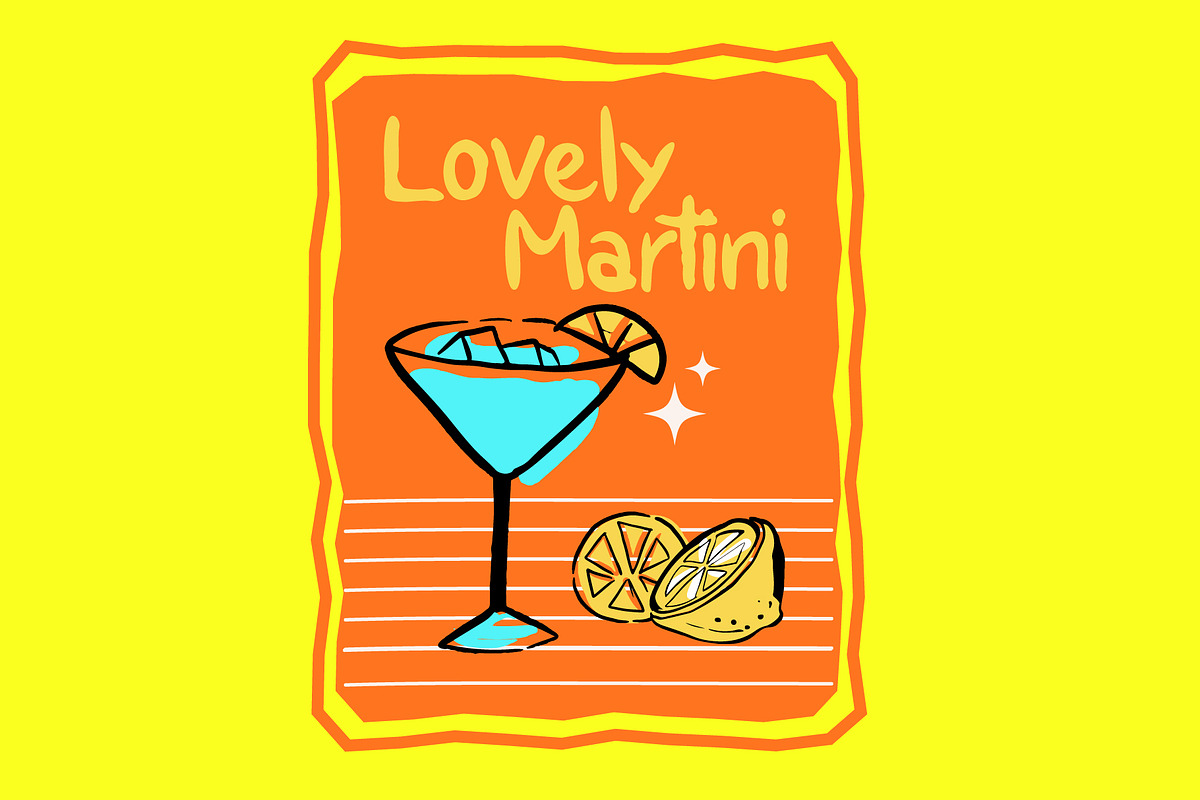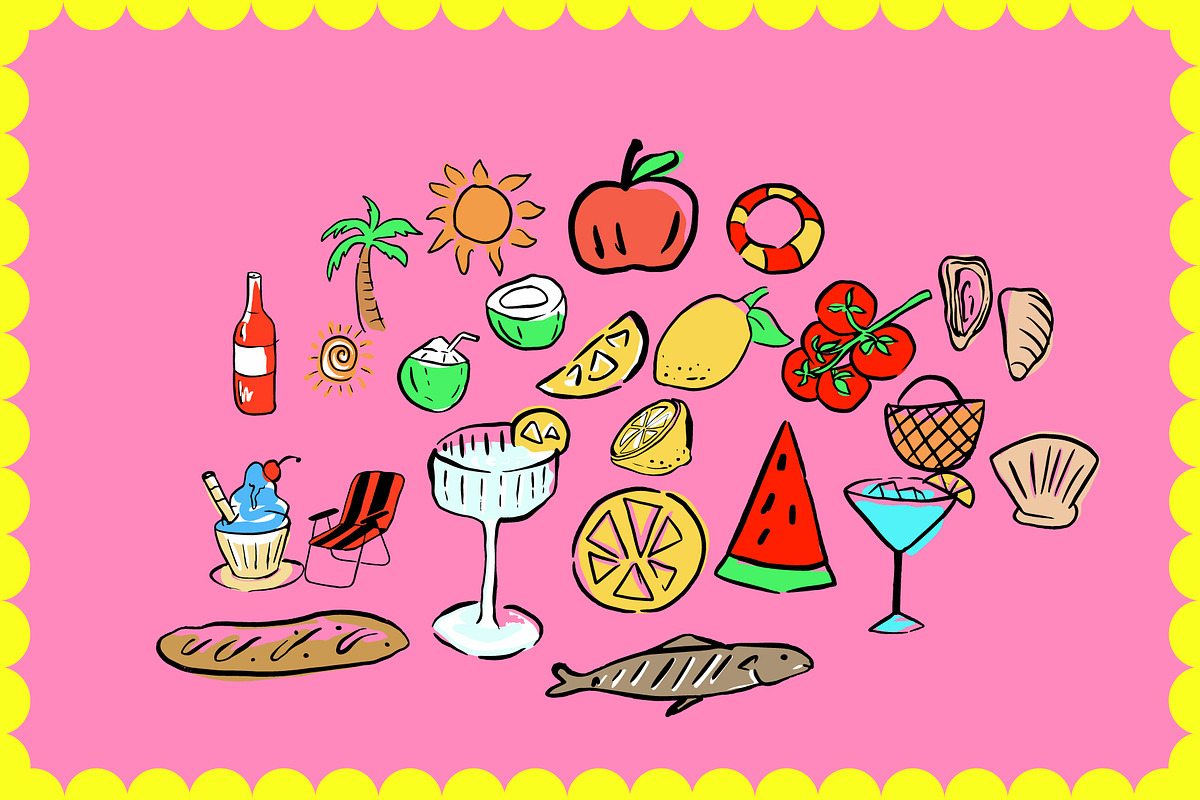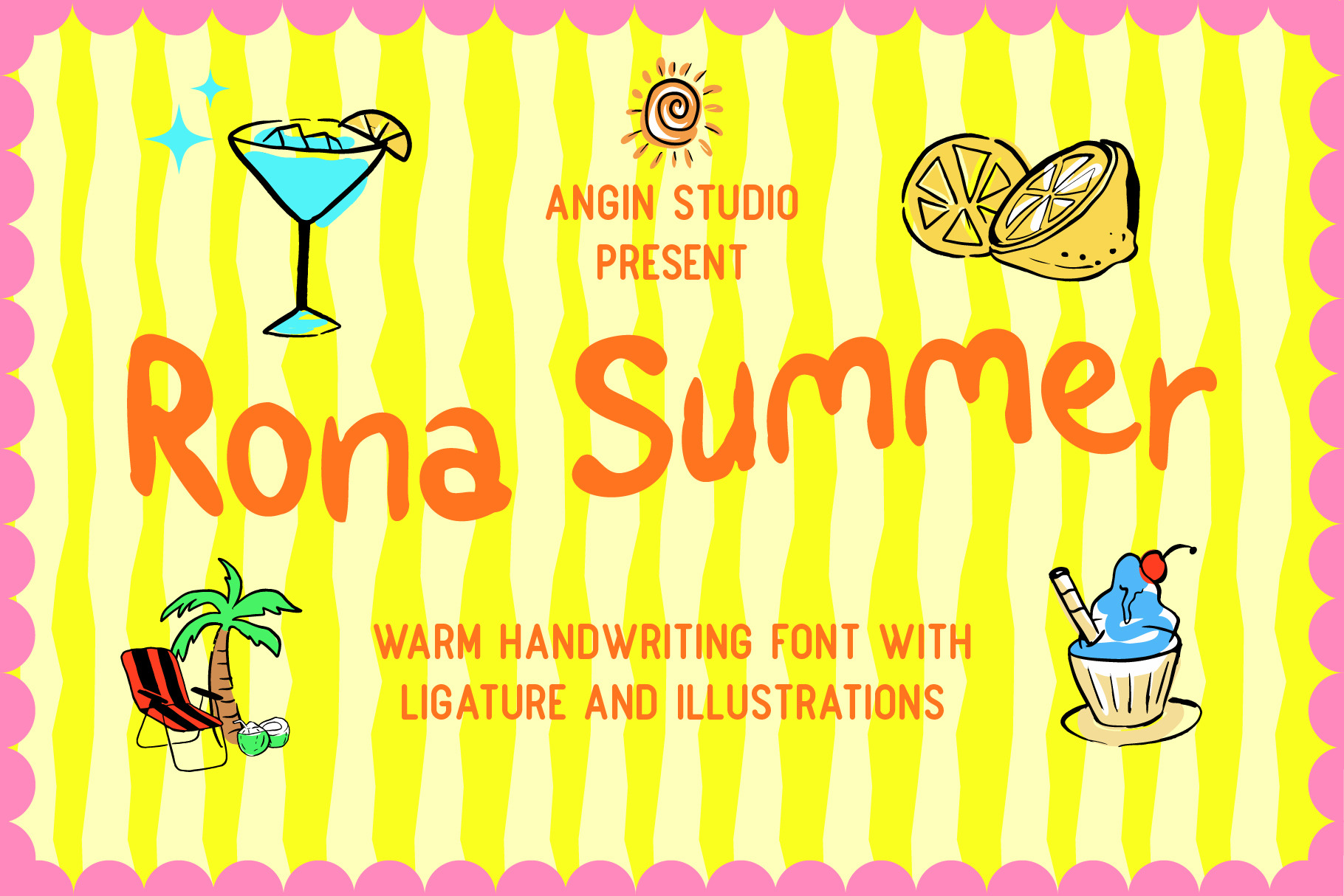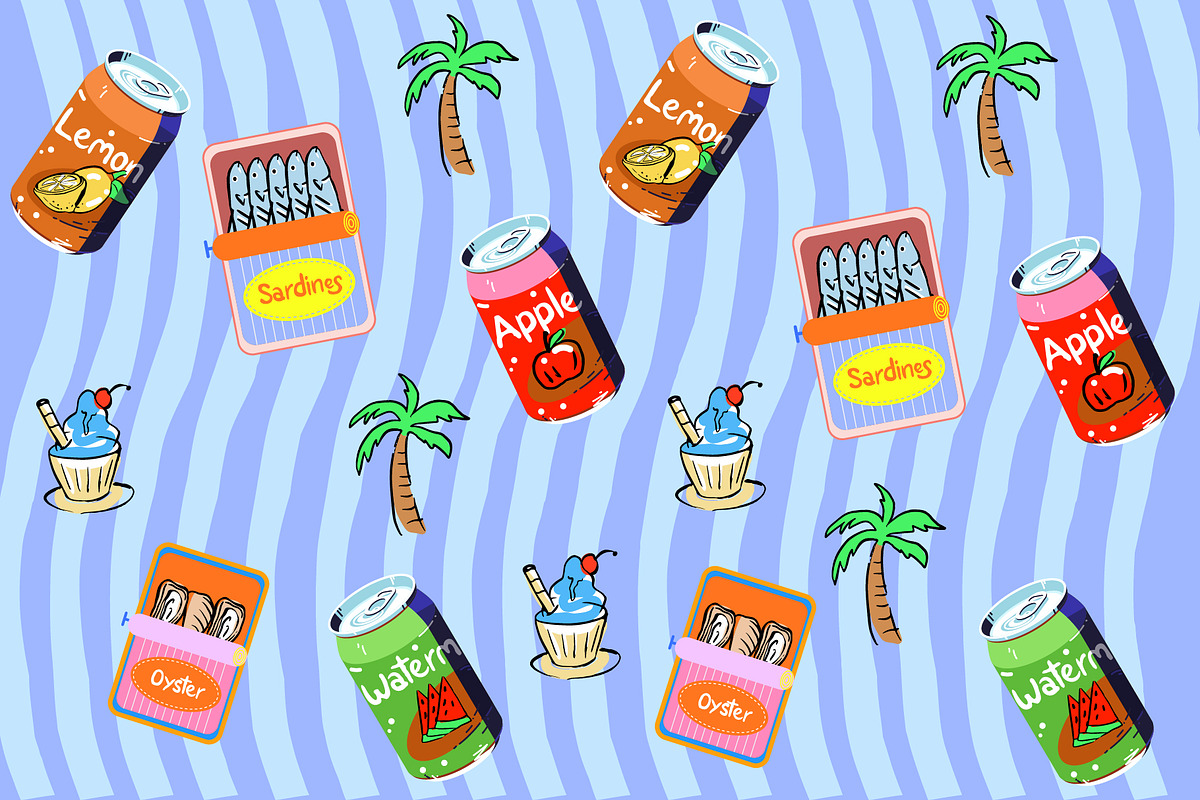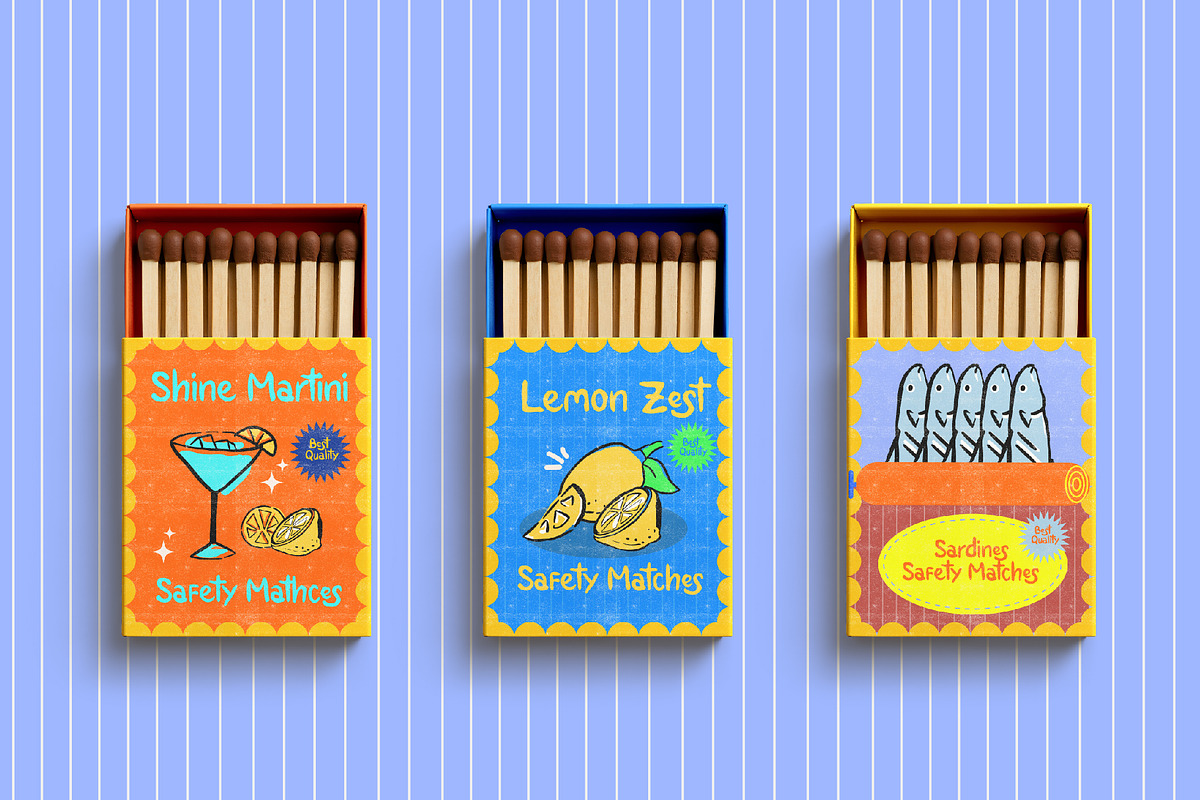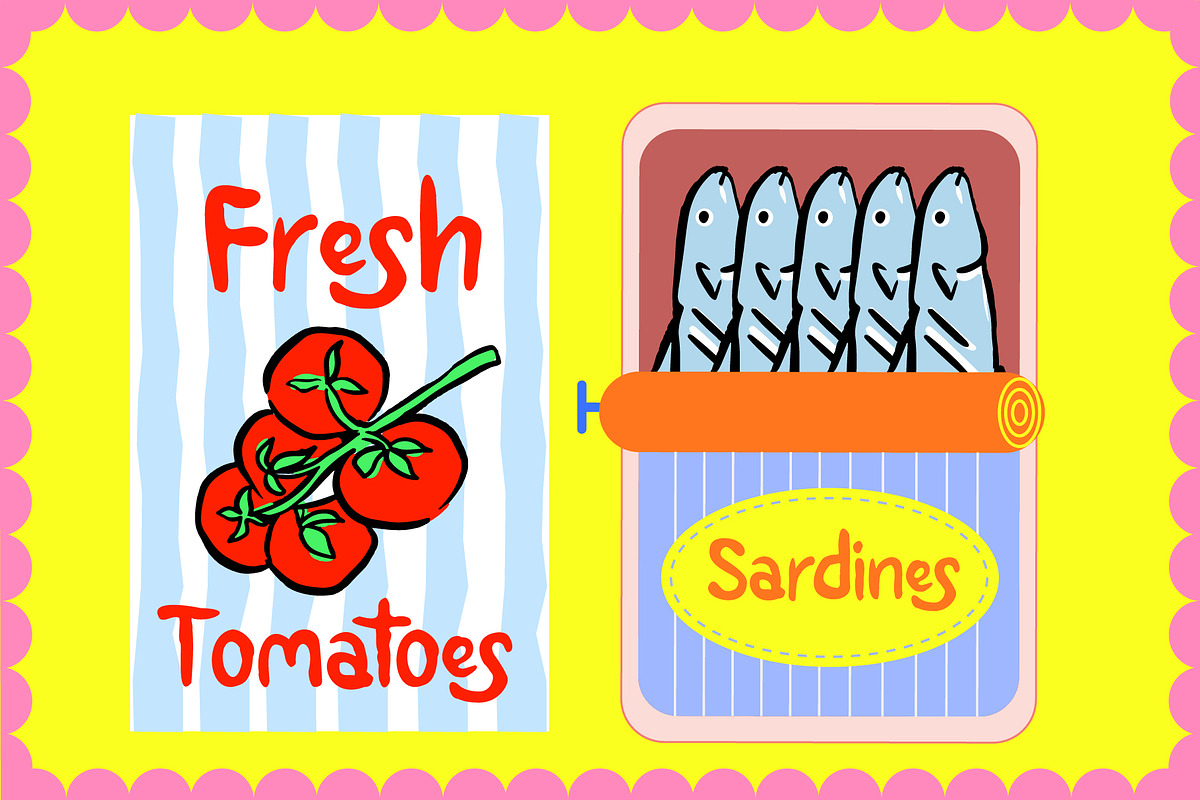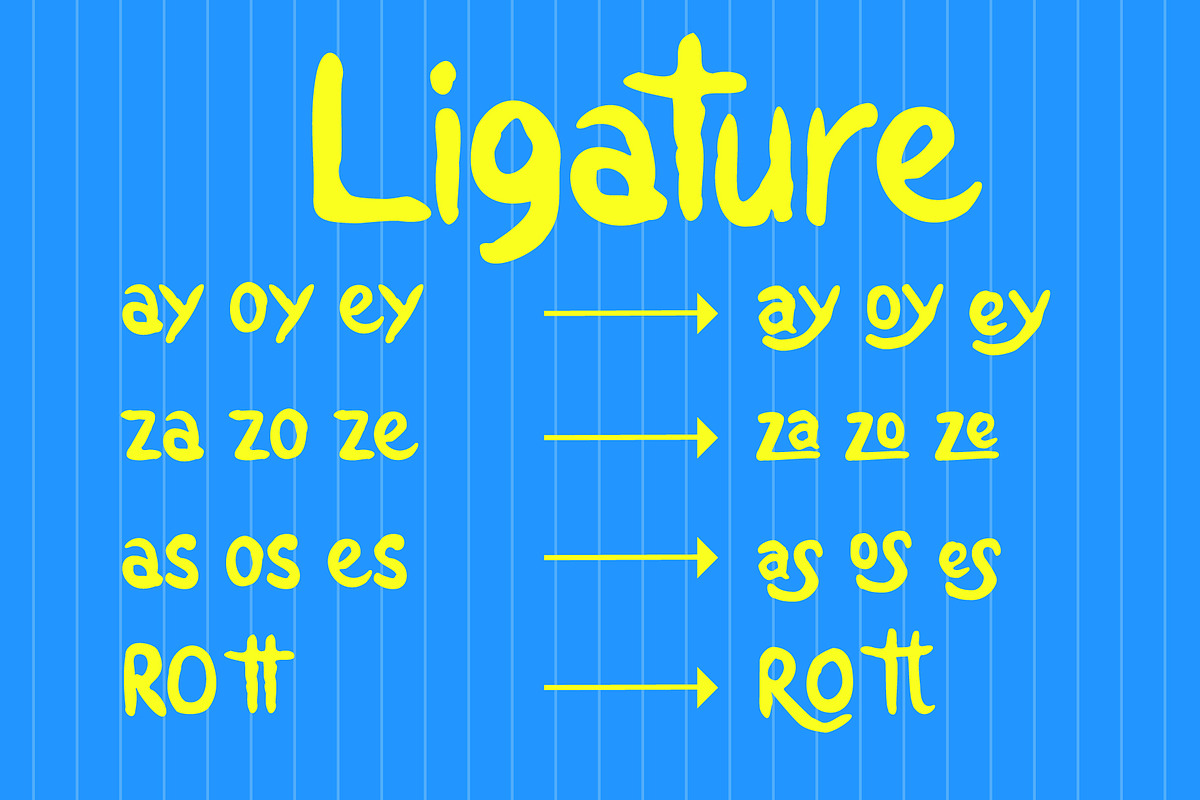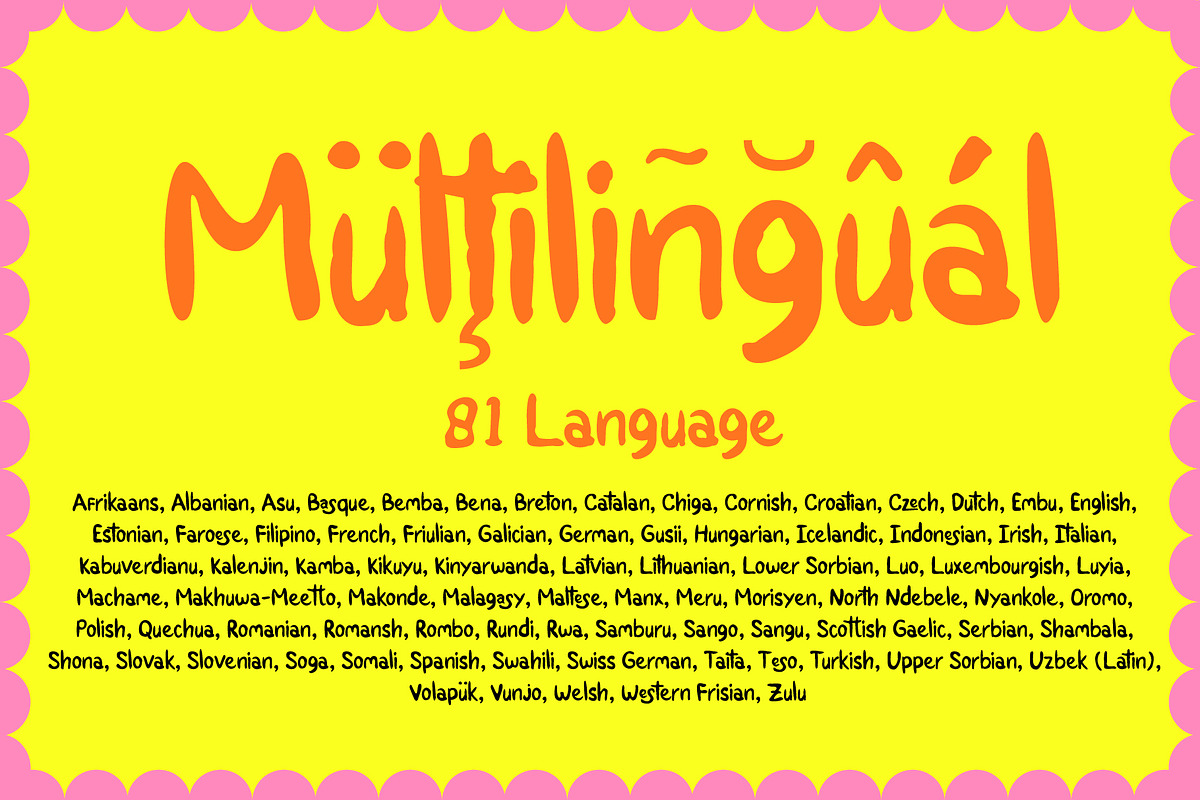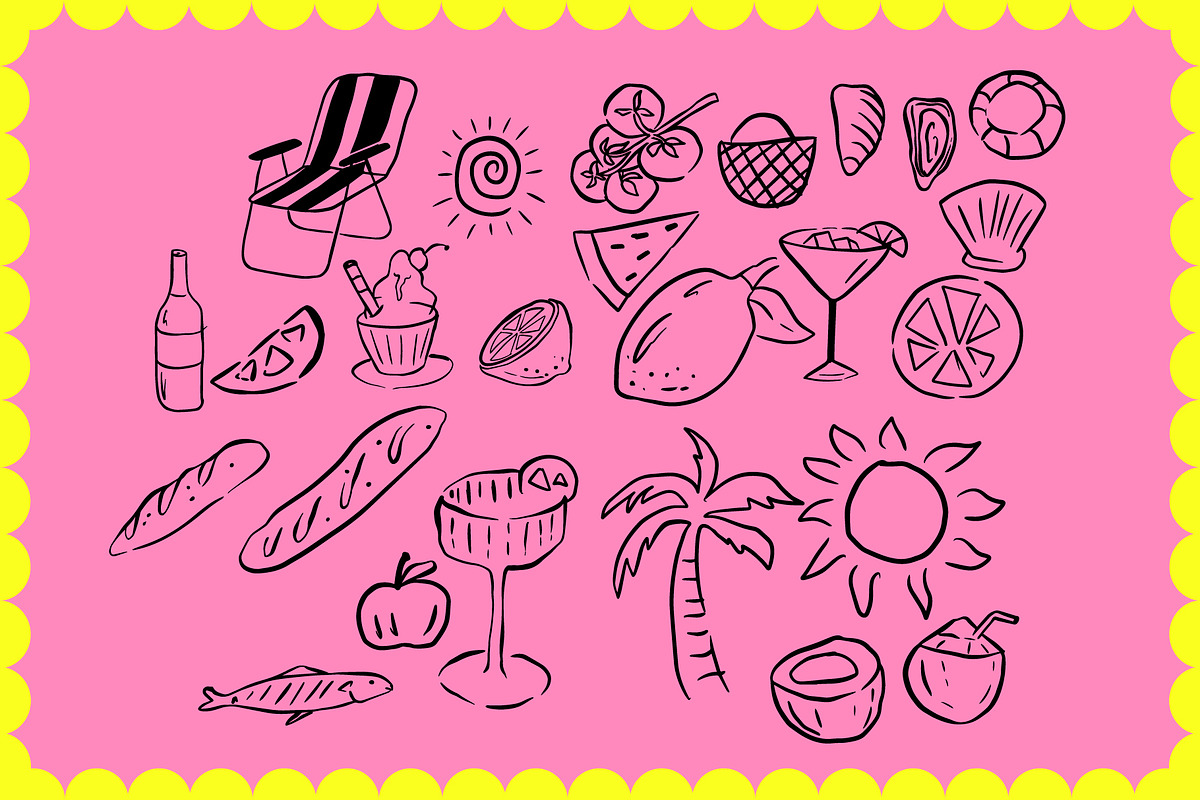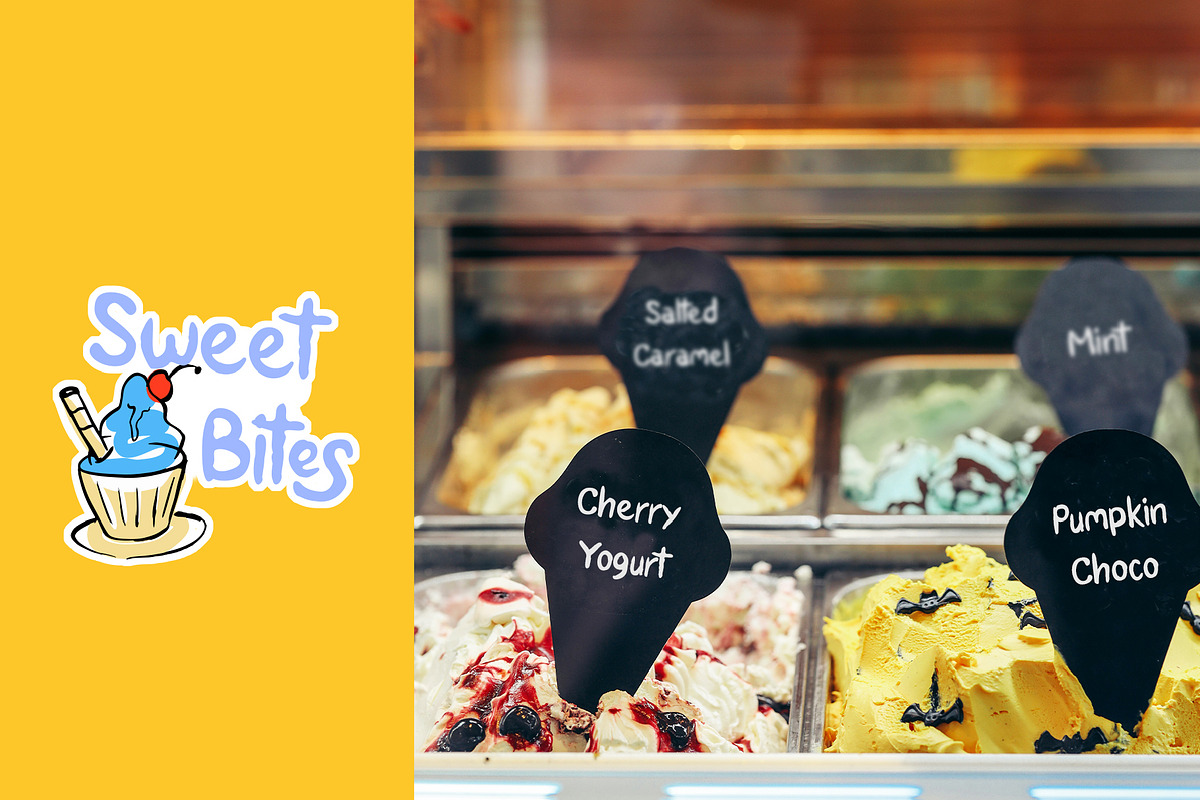
Rona Summer Warm Handwritten Font
When the world strive for perfection, and the standard of perfection growth following the growth of technology, the human touch with imperfection becomes a luxury.
Introducing Rona Summer, a warmth handwriting font, each stroke created by hand, a gritty edge and raw stroke once called a flaws now becomes a features. When digital precision feels too cold, Rona Summer brings raw emotion, human touch, and unmistakable character back to your creative work. Rona Summer comes with an alternates, ligature and multilingual features, also a pack of hand drawn illustrations.
This imperfect fonts, created 100% by human.